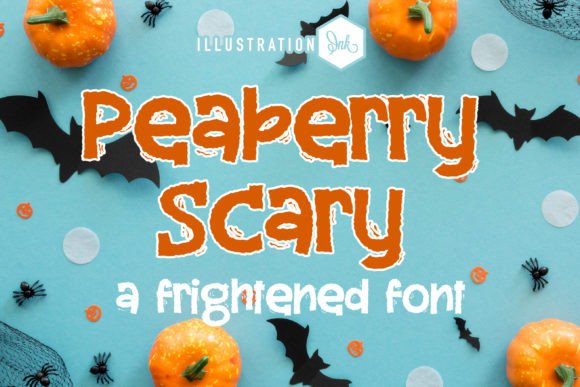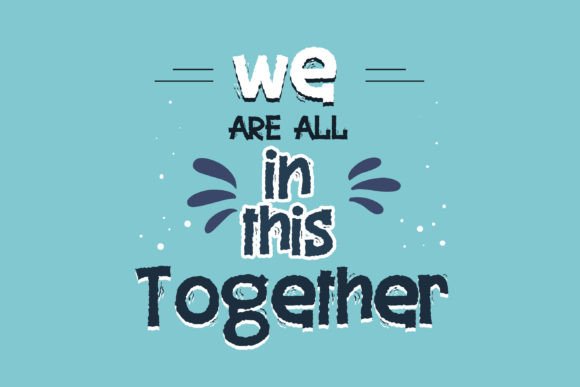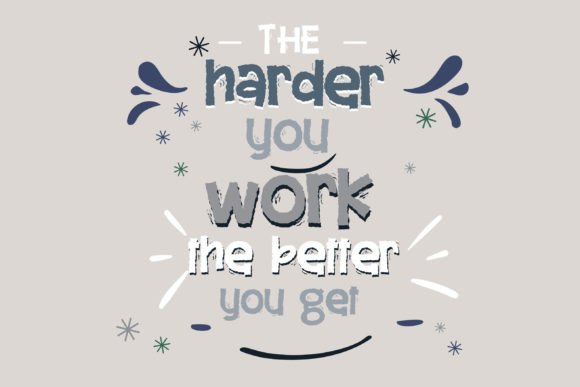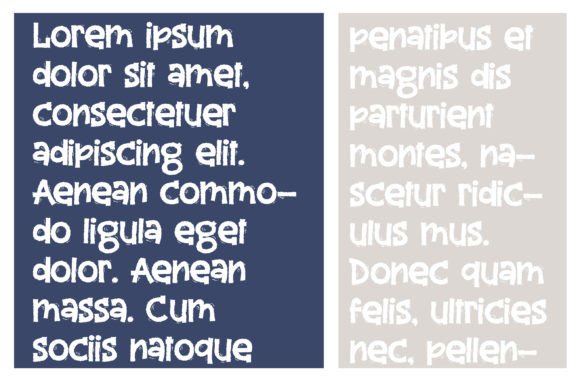
Peaberry Scary Font: A Cute Halloween Display Font for Cricut & Crafts
About the Peaberry Scary Font
Crafted with precision, the Peaberry Scary Font is ready to bring your ideas to life. Peaberry Scary is a cute and scary display font. Whimsical and a bit quirky, this font will brighten up each of your designs. Add it confidently to your projects, and you will love the results.
Peaberry Scary excels as a display font for headlines, posters, and branding projects requiring a playful yet slightly spooky aesthetic. Its whimsical nature makes it ideal for children’s books, Halloween-themed designs, or brands targeting a younger demographic with a fun, quirky personality. Avoid using it for body text or long paragraphs; its unique character is best showcased in short, impactful bursts.
Pairing Peaberry Scary with a clean sans-serif like Open Sans for body copy creates a strong contrast, balancing its playful energy with readability. For a more sophisticated feel, consider pairing it with a classic serif font such as Garamond or a slightly more modern geometric sans-serif such as Futura. These pairings will enhance the font’s unique charm without overwhelming the design.
The font’s overall personality is best described as playfully mischievous; it’s bold and attention-grabbing, yet maintains a lighthearted, approachable feel. This makes it a versatile option for projects needing a touch of spooky fun, but not outright horror.